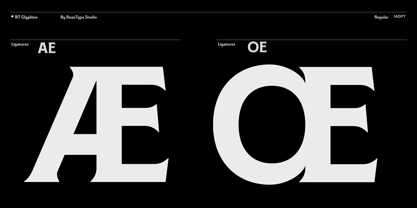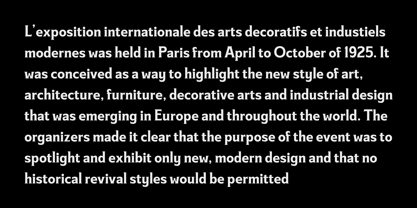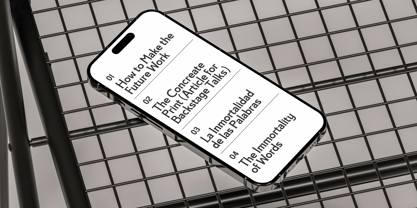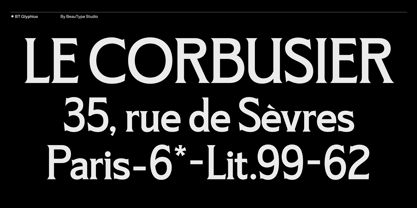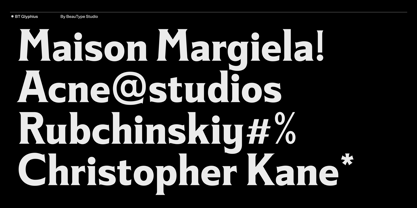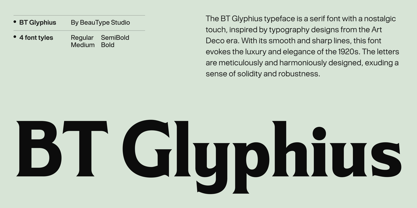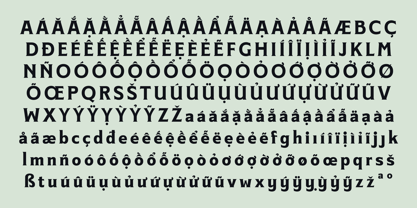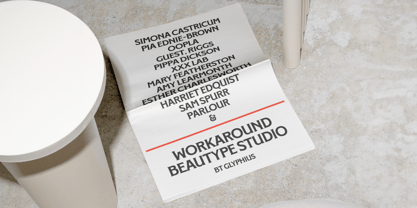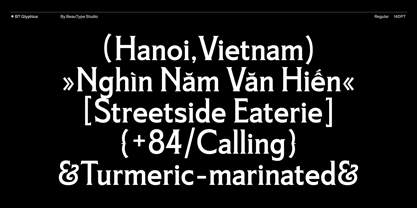
BT Glyphius
par BeauType
La famille de polices BT Glyphius a été conçue par et publiée par BeauType. BT Glyphius contient 4 styles et options de package familial.
BT Glyphius is a serif typeface with a nostalgic touch, inspired by Art Deco typography designs. With smooth, sharp lines, this font evokes the elegance and sophistication of the 1920s. The letters are designed with balance and meticulous detail, giving a sense of solidity and steadiness. This typeface can be used in classic, luxurious designs such as logos, book titles, magazines, art posters, or high-end advertising publications.
BeauType, a Vietnamese type foundry under Beau Agency, is dedicated to crafting elegant and functional typefaces. They delve into typographic research and offer a range of type-related services. Their fonts are crafted to enhance digital and print designs, catering to diverse branding and creative needs. BeauType's commitment to quality and innovation makes them a leading voice in the Vietnamese type design scene.